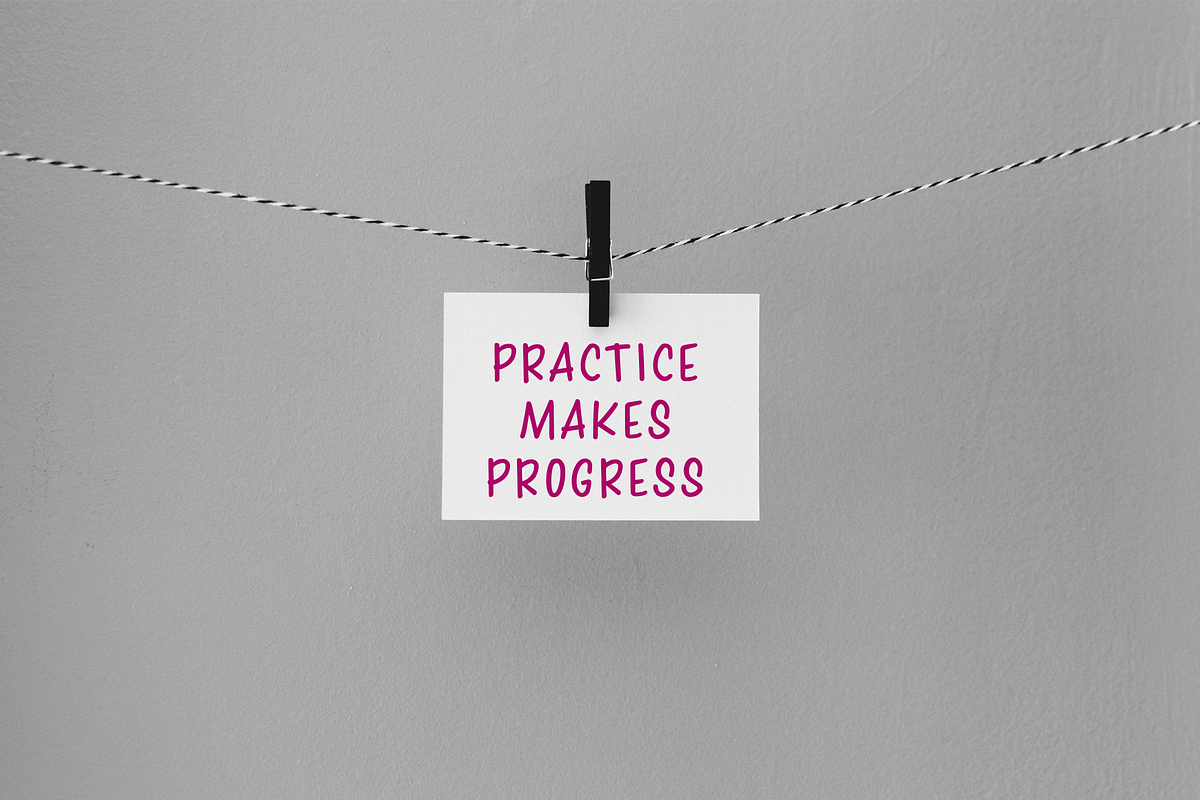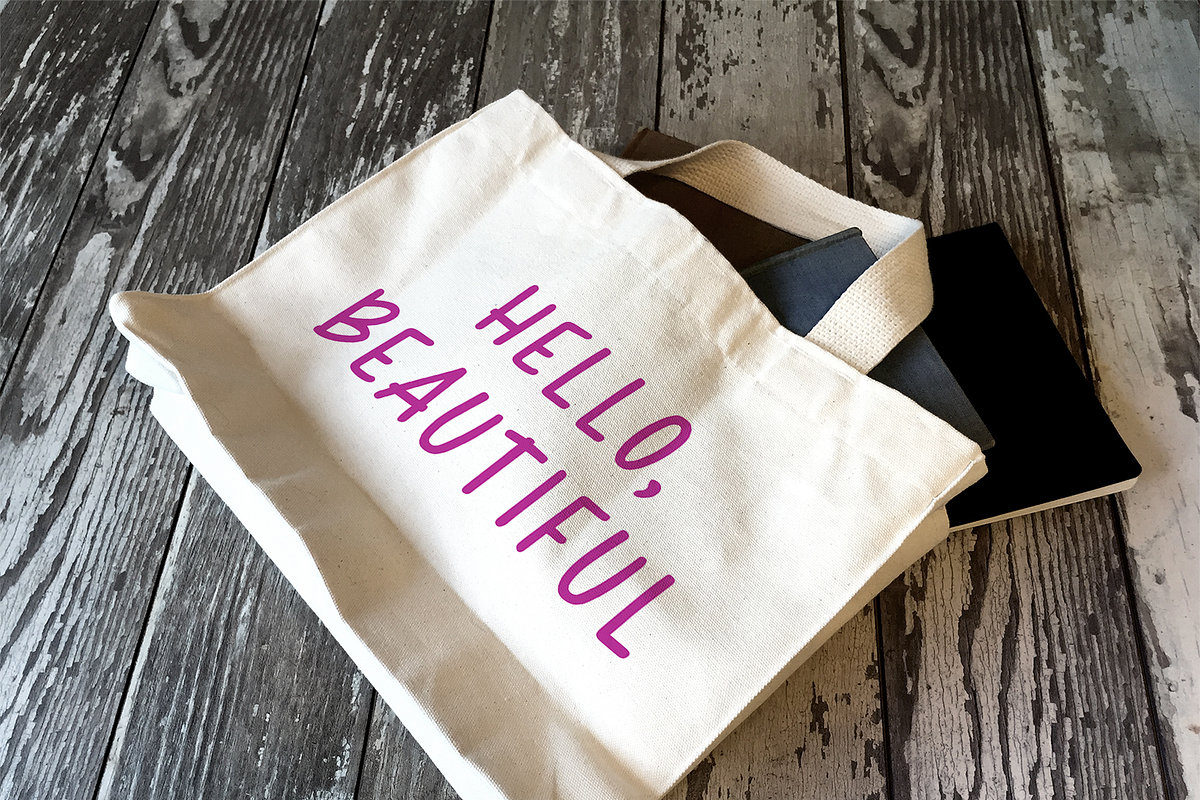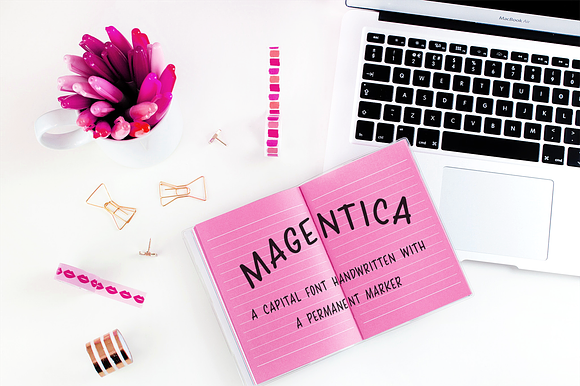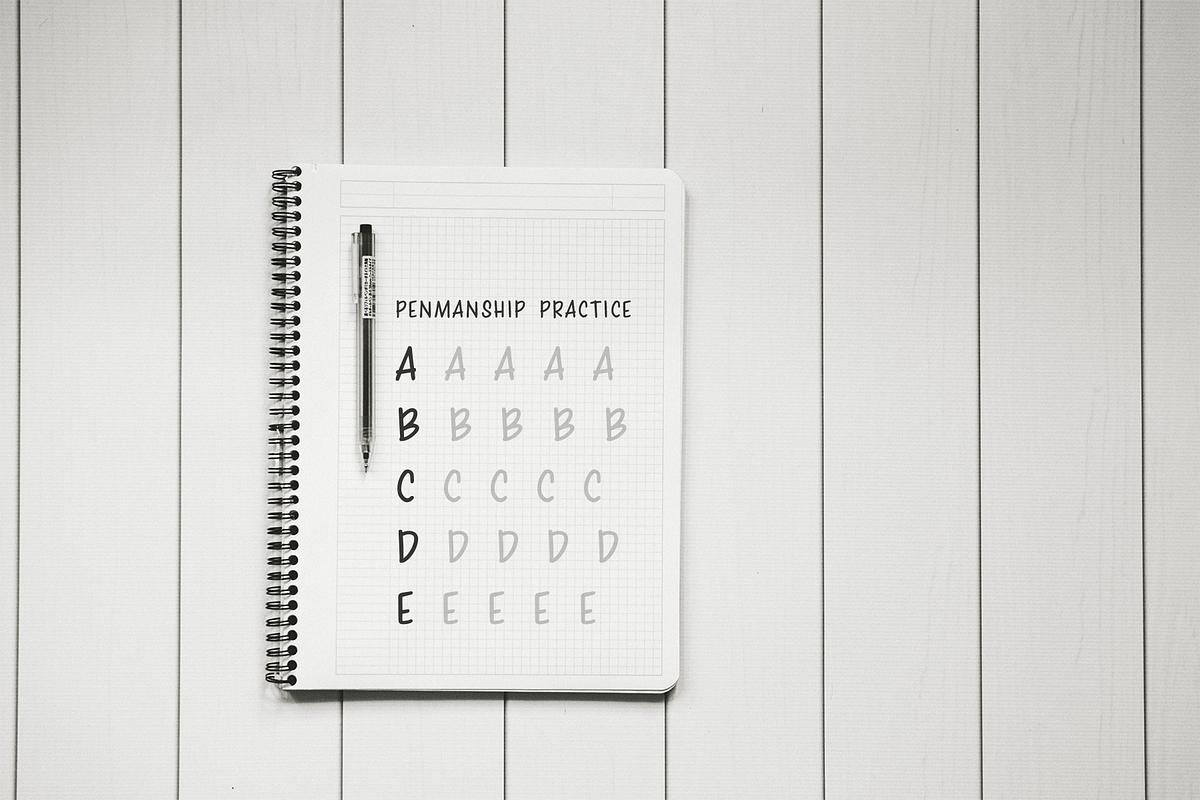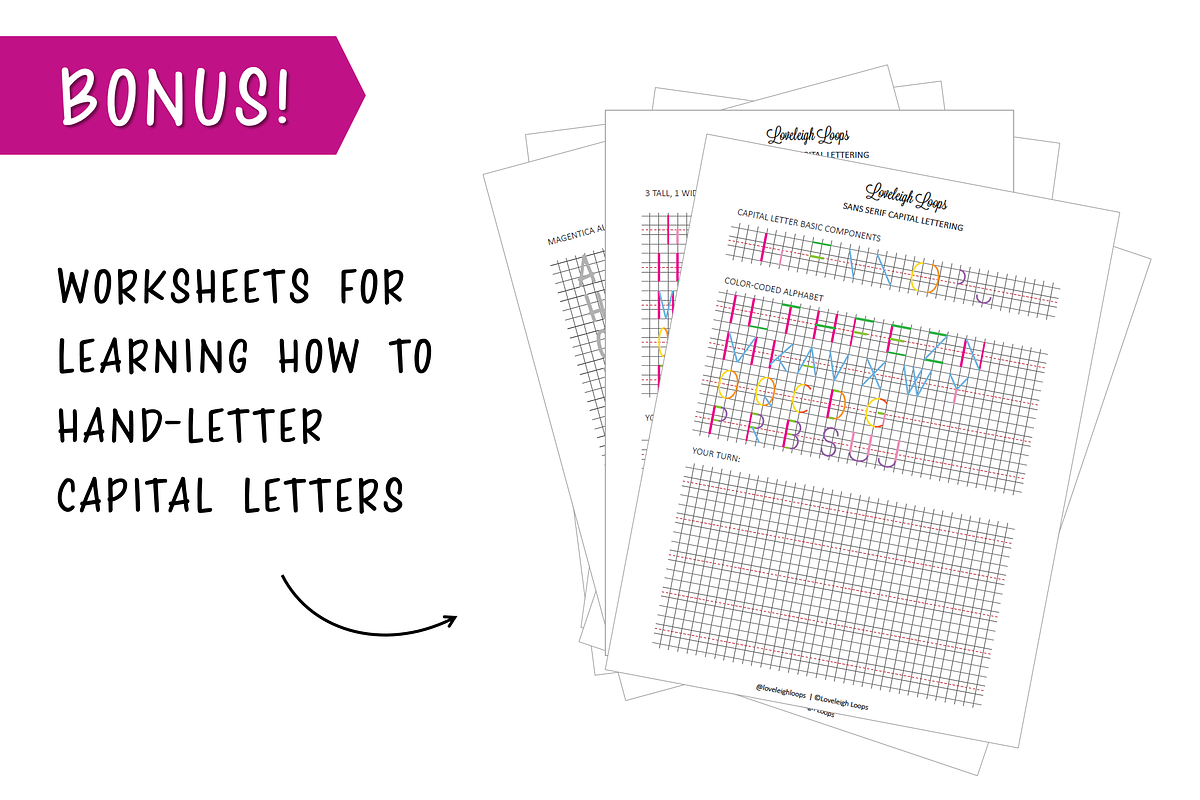
Magentica Caps Font + Capital Worksh
Magentica is an all-caps font that was created by hand with a Sharpie.
Sans serif color-coded alphabet
3 alphabet variations
Other proportion ideas
Magentica alphabet worksheet to trace